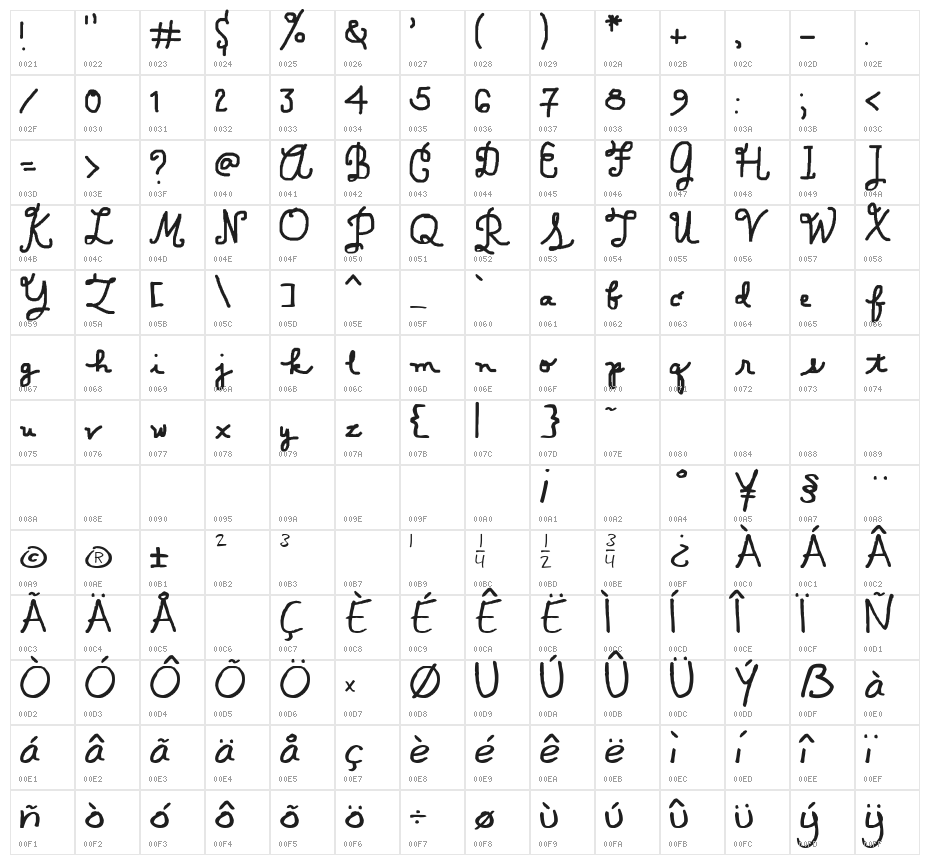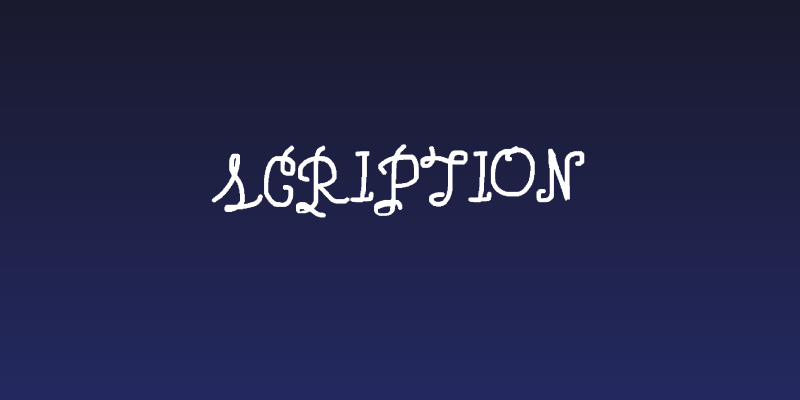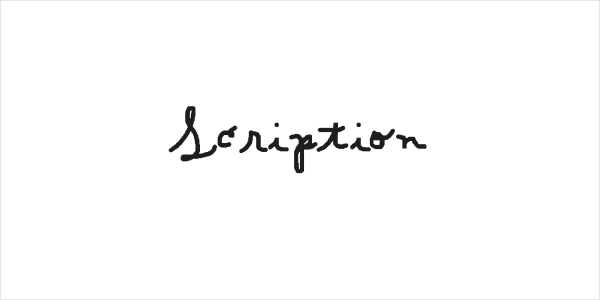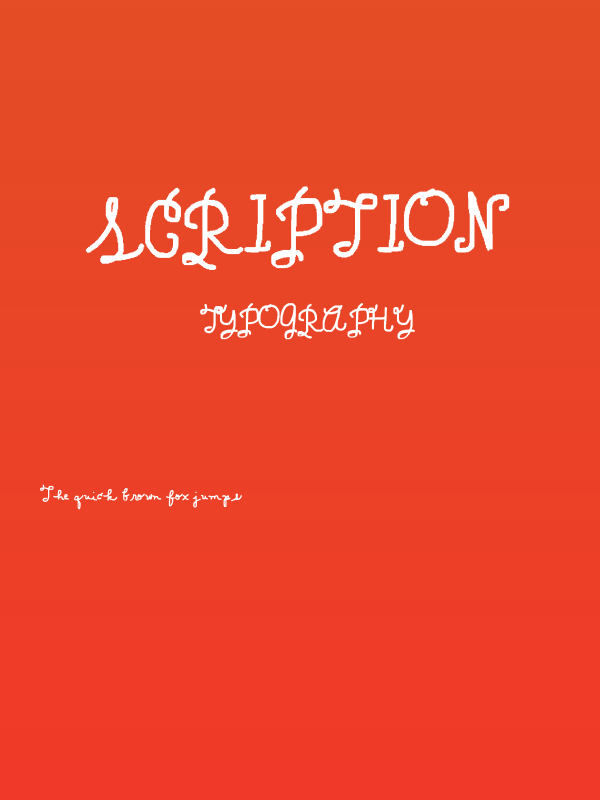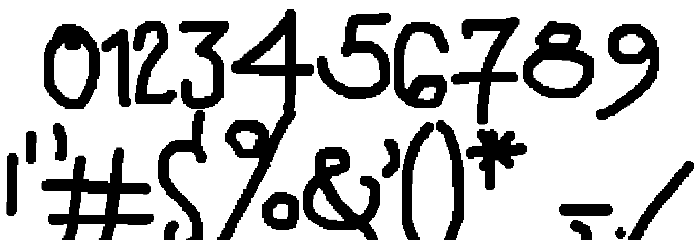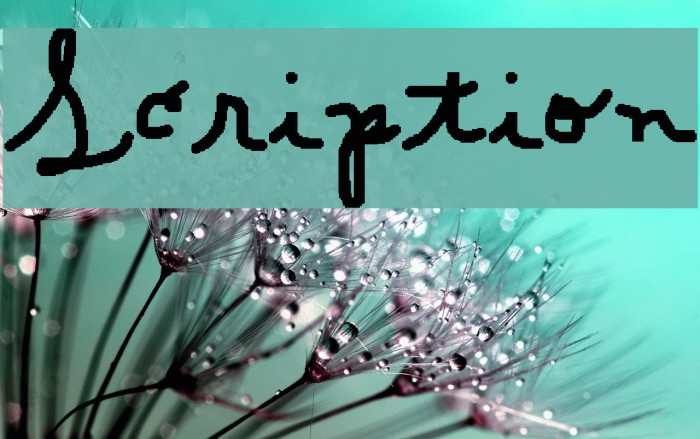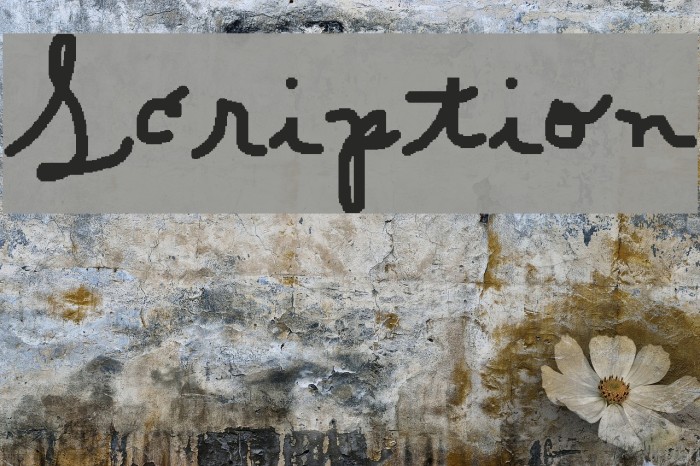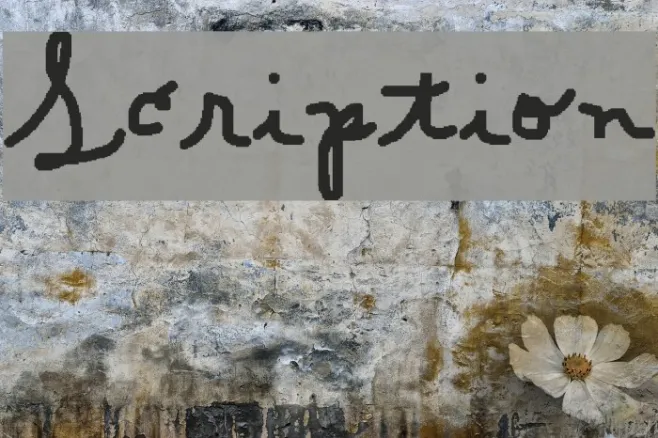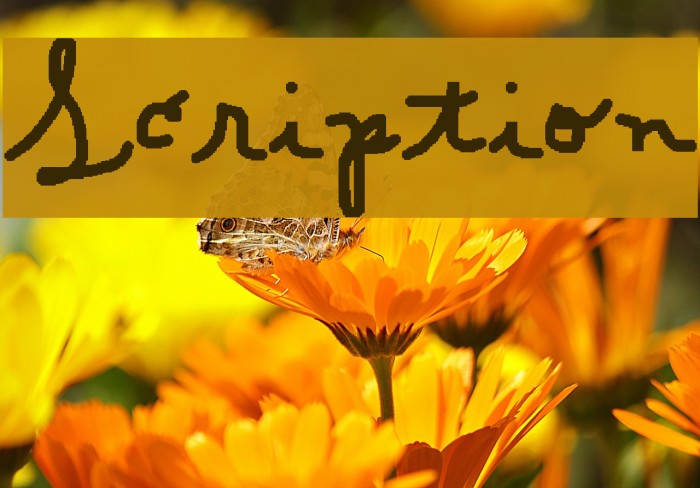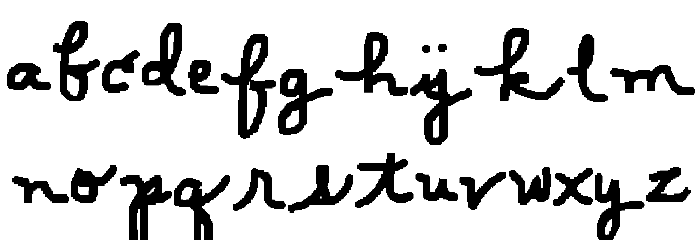
Scription Font
Scription Description
This font features a playful and whimsical script style, characterized by its flowing, interconnected letters that mimic a handwritten aesthetic. The uppercase letters are bold and slightly exaggerated, with unique curls and loops that add a decorative touch. The lowercase letters maintain a consistent flow, with some letters extending below the baseline, enhancing the casual and informal feel. The numerals are clear and legible, maintaining the playful style with slight variations in stroke width. Special characters are creatively designed, fitting seamlessly with the overall script theme. This font is ideal for projects that require a personal, friendly touch.
| Proposed Projects | Greeting cards, invitations, personal branding, and creative posters. |